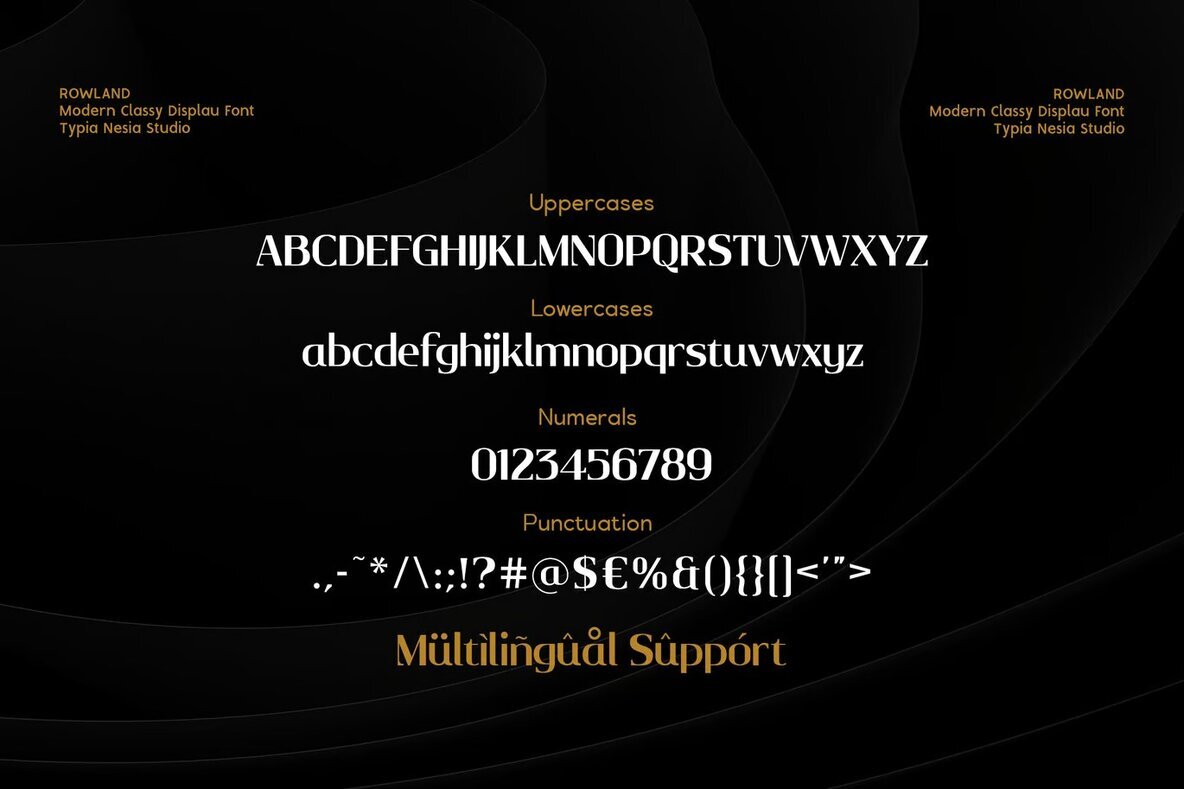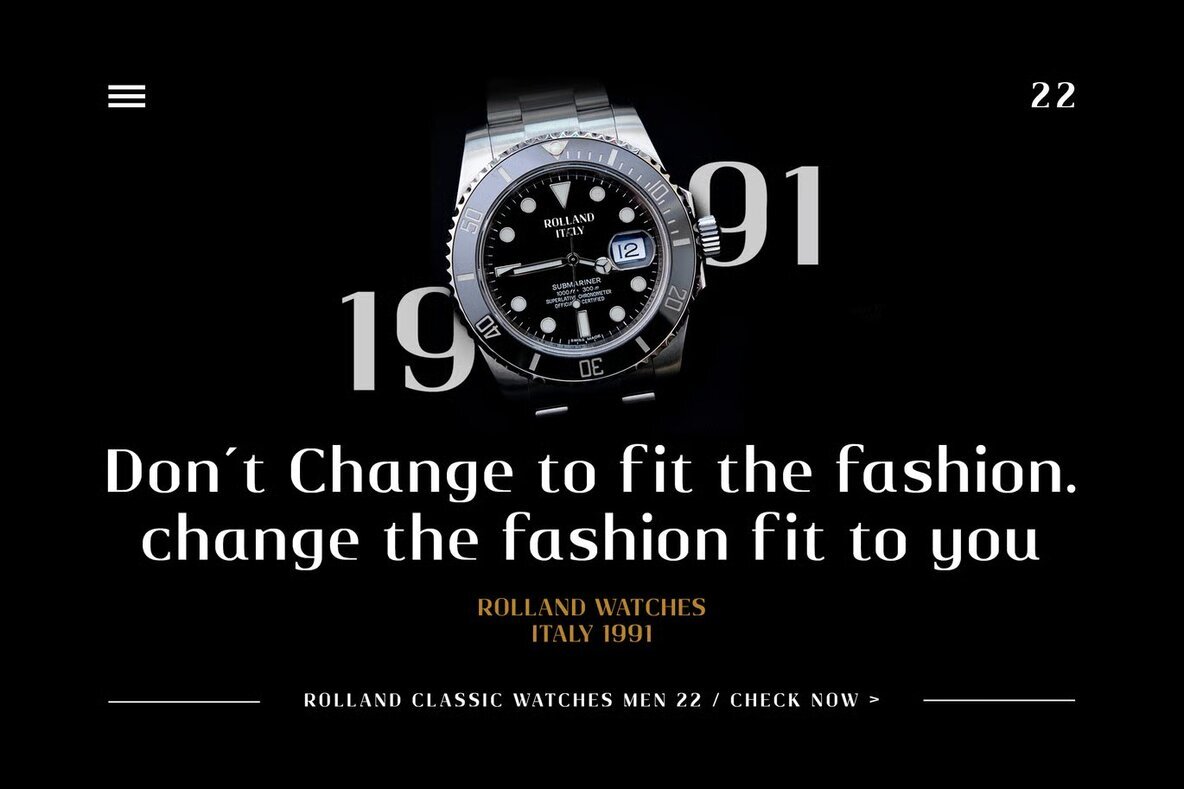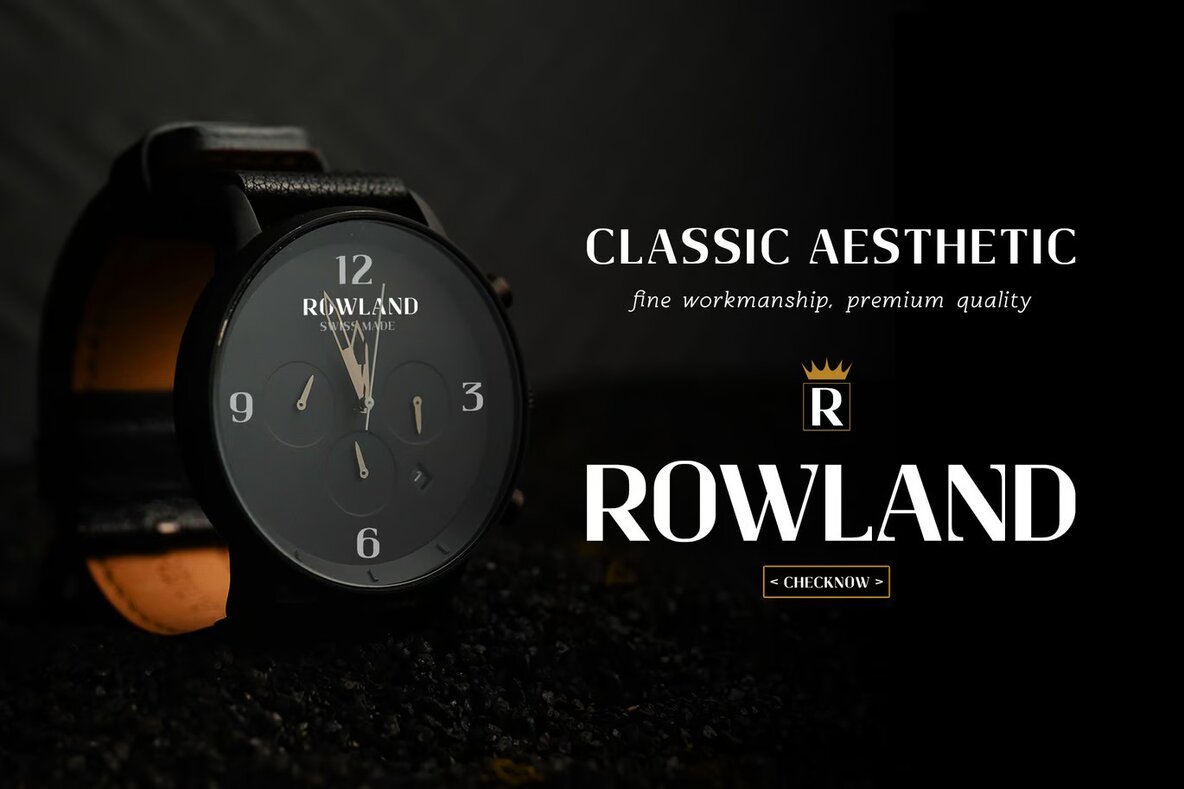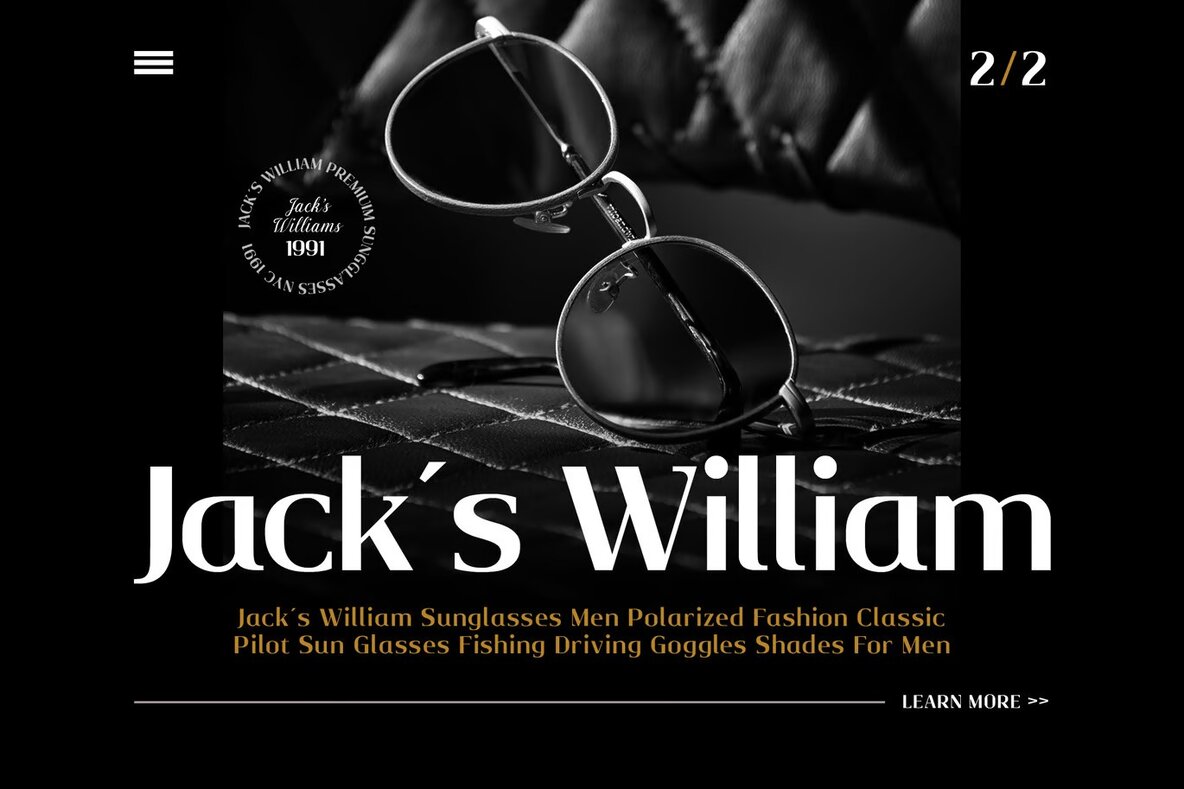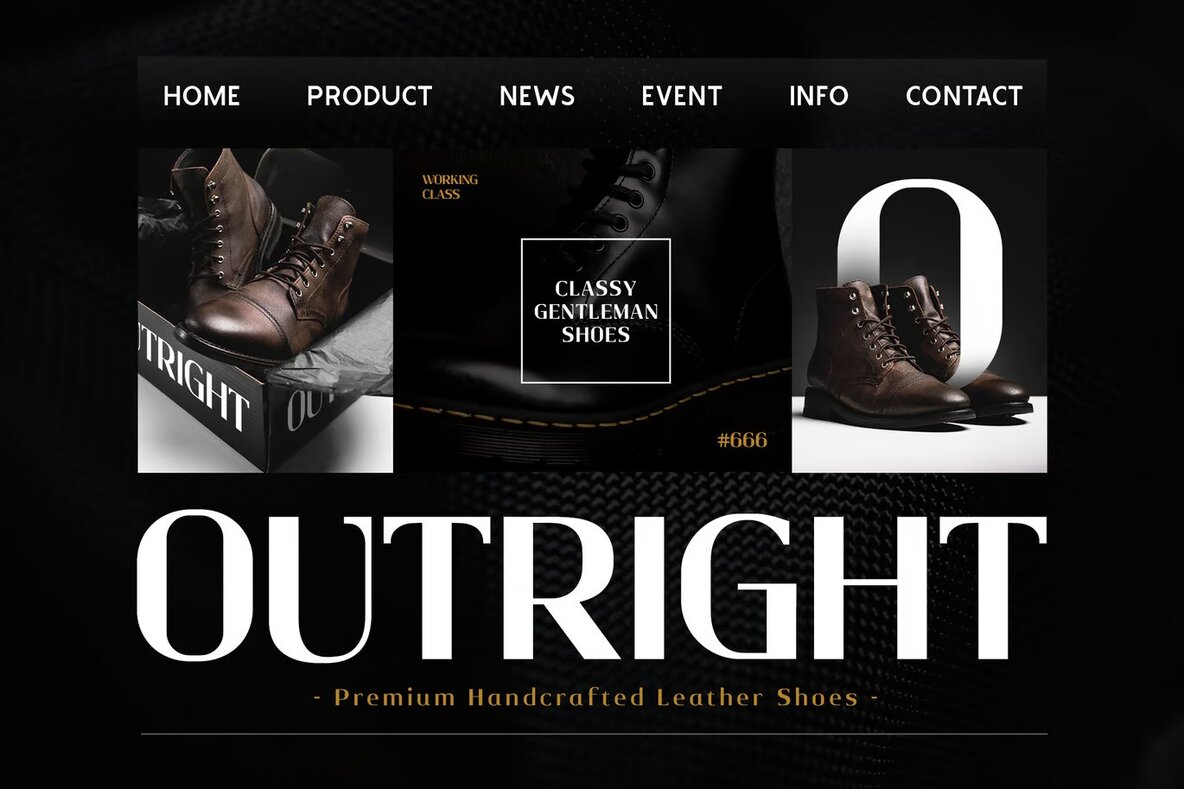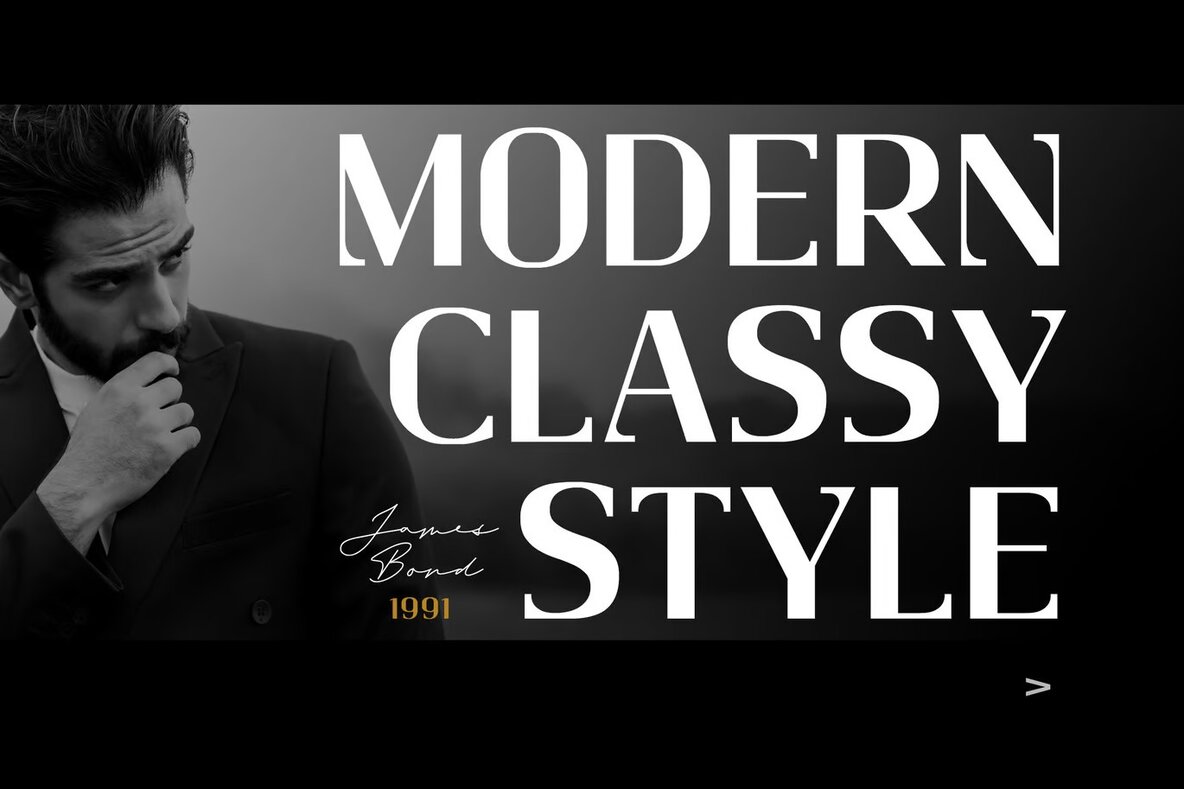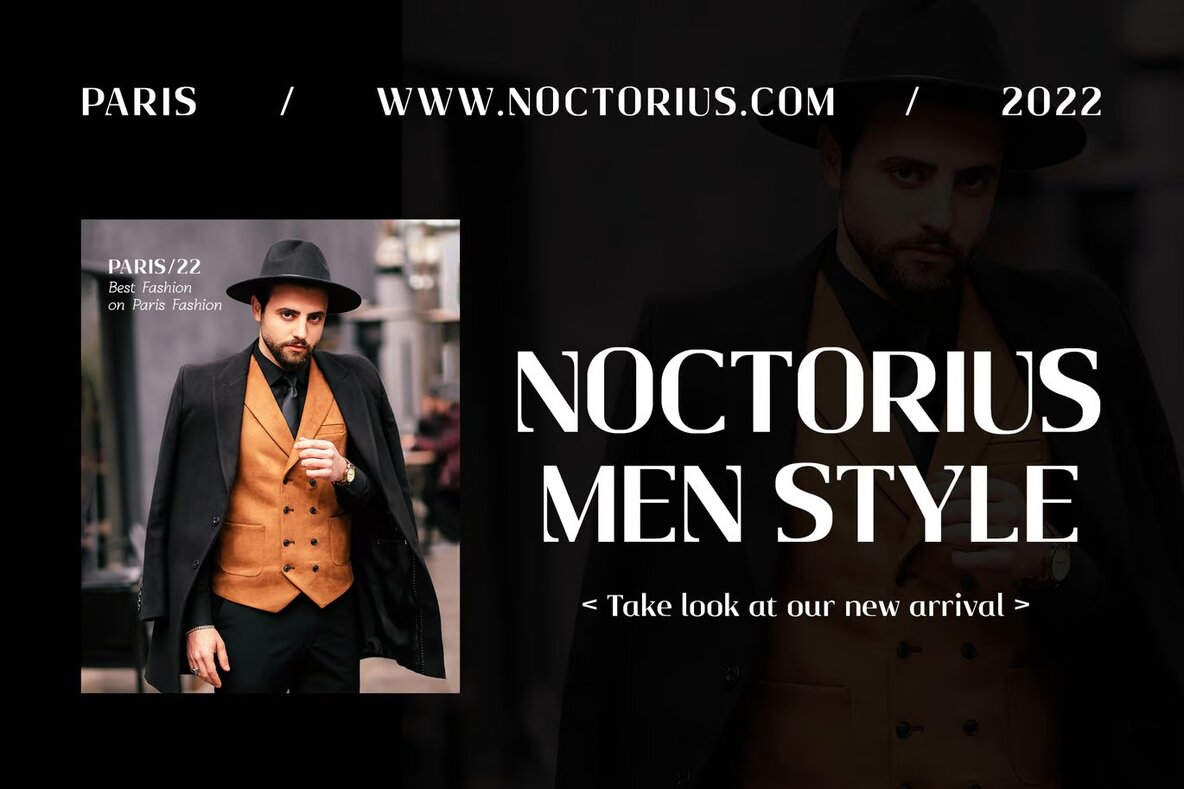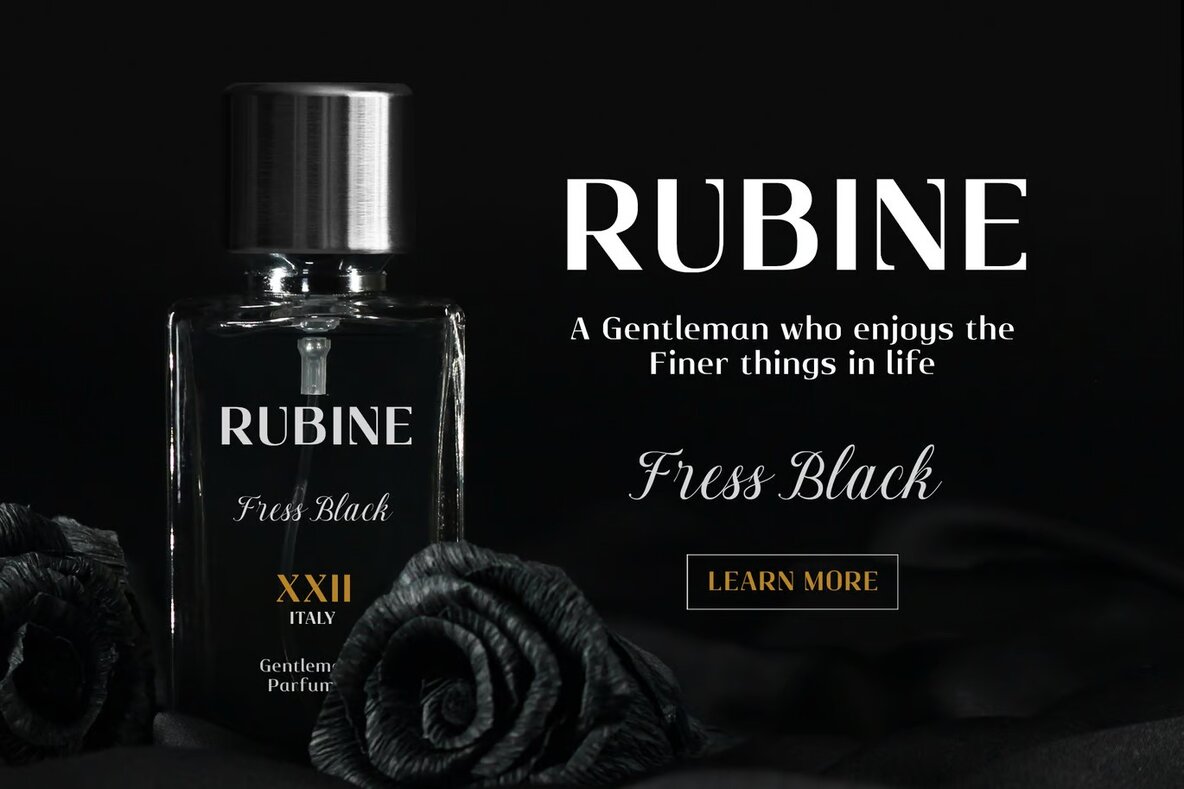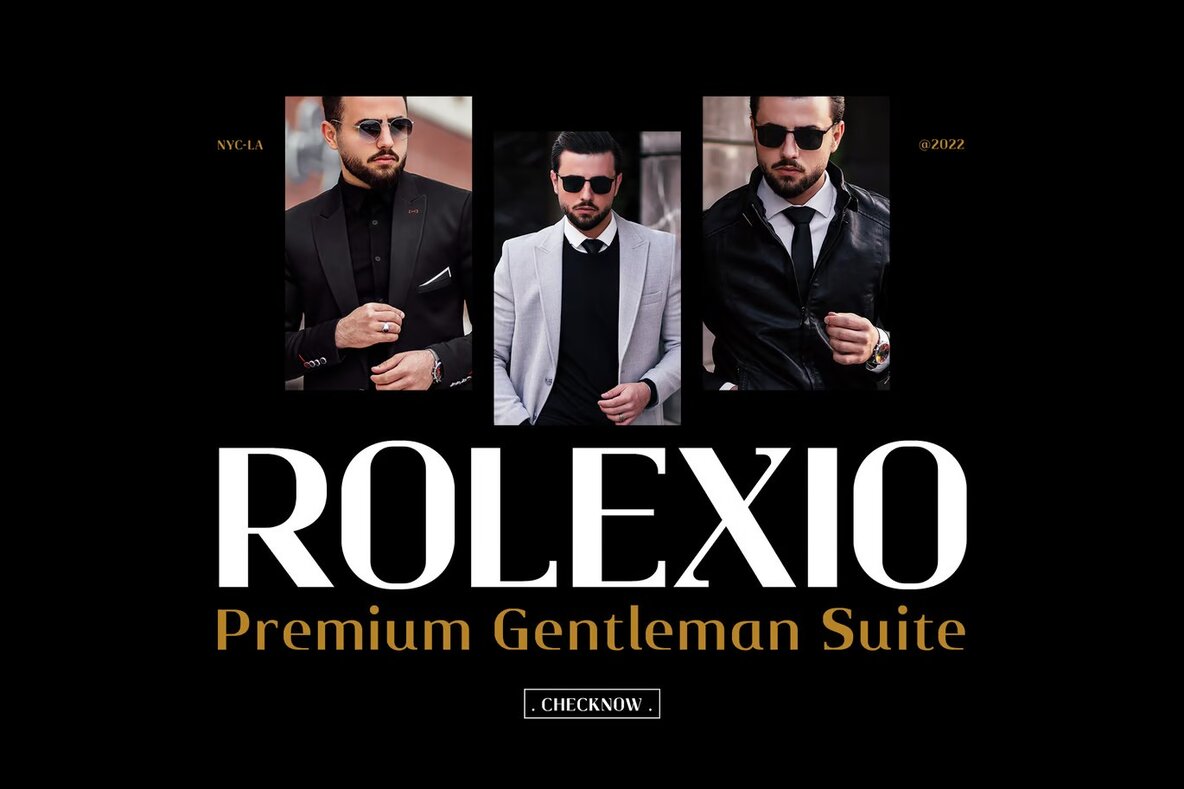
Rowland Font
Rowland Regular
Rowland is a modern, masculine, and classy sans serif font perfect for a wide range of design needs. Whether you're working on logo and branding projects, modern advertising designs, or vintage garage themes, Rowland stands out with its bold and clean lines. Ideal for adventure and mountain hiking brands, this versatile font also shines in animation or movie titles, adding a distinct touch to any project.
Beyond logos and branding, Rowland brings a retro flair to summer poster quotes, book and novel covers, and editorial designs. Its clean and sophisticated style makes it suitable for websites, blogs, and cards, providing a professional look to any design. With its robust and stylish aesthetic, Rowland effortlessly bridges classic and modern design elements.